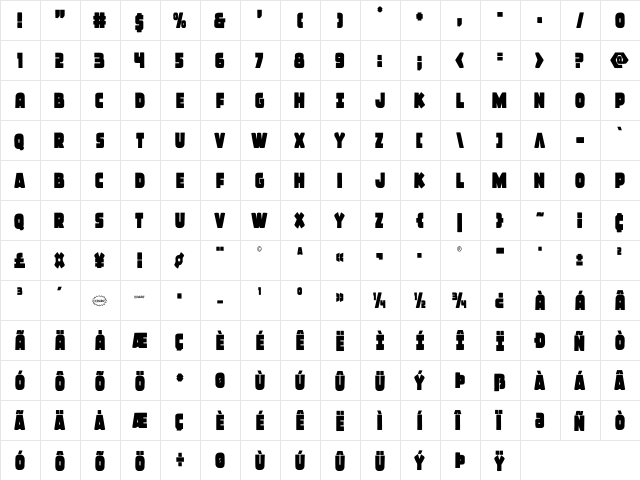
Frost Giant Condensed Condensed
Design Context for Frost Giant Condensed Typeface
Frost Giant Condensed takes a measured approach to typography — its balanced proportions and neutral character make it a reliable workhorse for both digital and print work. The condensed width makes it efficient for tight spaces without sacrificing legibility.